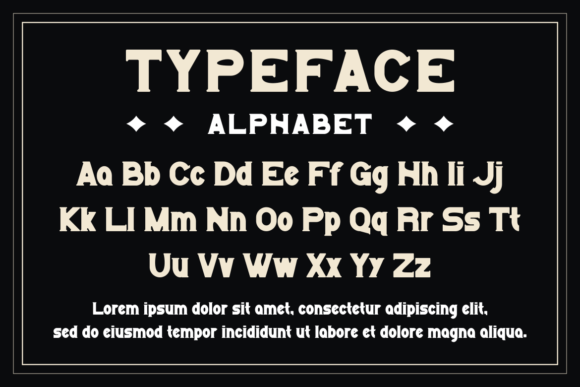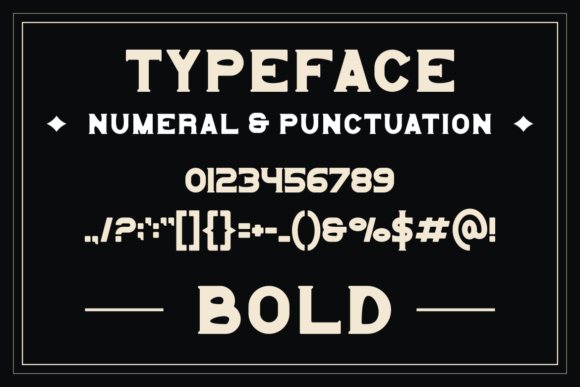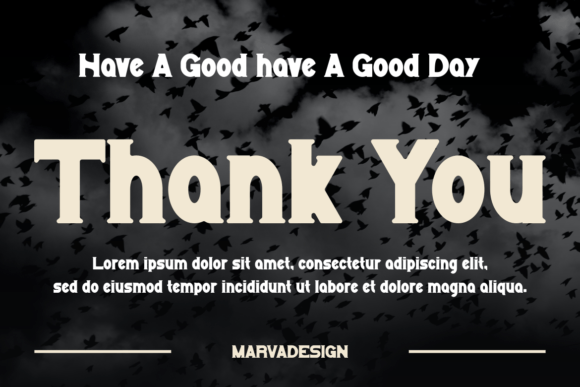
BADDAN Font – Elevate Your Designs with a Modern and Bold Display Font
In the world of typography, a font can make or break a design. For designers and crafters looking for a bold and authentic display font, BADDAN Font is an excellent choice. This modern font is perfect for any branding project, from logos and t-shirt printing to product design and more. With its versatility and wide range of applications, BADDAN Font is sure to elevate your designs and make them stand out.
What Makes BADDAN Font Stand Out?
BADDAN Font is a bold and authentic display font that is designed to make a statement. Its modern and sleek design makes it perfect for a wide range of contexts, from digital media to print materials. The font’s bold and eye-catching style ensures that your designs will grab attention and leave a lasting impression.
One of the key features that sets BADDAN Font apart is its versatility. Whether you’re working on a logo, t-shirt design, or product packaging, this font is sure to fit the bill. Its clean and simple design makes it easy to read and understand, while its bold style ensures that your message will be heard.
Perfect for Branding Projects
BADDAN Font is specifically designed with branding projects in mind. Whether you’re looking to create a logo, design a t-shirt, or develop a product packaging solution, this font is the perfect choice. Its bold and authentic style ensures that your brand will stand out and be remembered.
With BADDAN Font, you can create a wide range of branding materials, including:
- Logos: Create a bold and eye-catching logo that perfectly represents your brand.
- T-shirt printing: Design a t-shirt that makes a statement with BADDAN Font’s bold and modern style.
- Product design: Create product packaging that stands out on store shelves with BADDAN Font’s clean and simple design.
- Business cards: Make a lasting impression with BADDAN Font’s bold and professional style.
Why Choose BADDAN Font?
So why choose BADDAN Font over other display fonts on the market? Here are just a few reasons:
- Versatility: BADDAN Font is perfect for a wide range of contexts, from digital media to print materials.
- Bold and authentic style: BADDAN Font’s bold and authentic style ensures that your designs will grab attention and leave a lasting impression.
- Easy to read and understand: BADDAN Font’s clean and simple design makes it easy to read and understand.
- Perfect for branding projects: BADDAN Font is specifically designed with branding projects in mind.
How to Use BADDAN Font
Here are a few tips for using BADDAN Font:
- Use it boldly: BADDAN Font is designed to make a statement, so don’t be afraid to use it boldly.
- Experiment with different colors: BADDAN Font looks great in a variety of colors, so experiment with different colors to find the one that works best for your design.
- Pair it with other fonts: BADDAN Font pairs well with other fonts, so don’t be afraid to experiment with different font combinations.